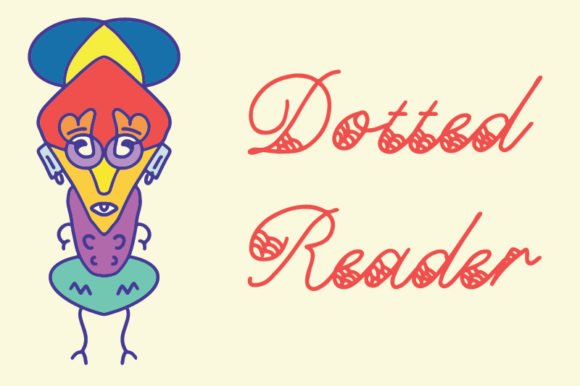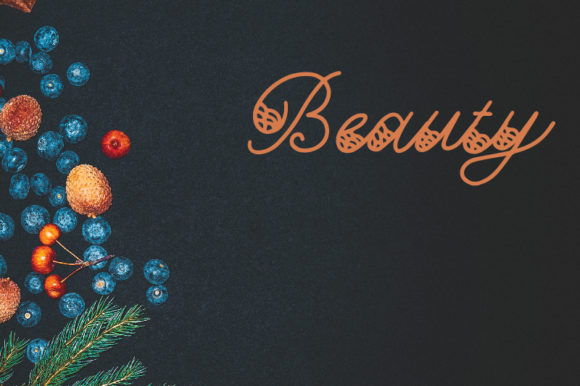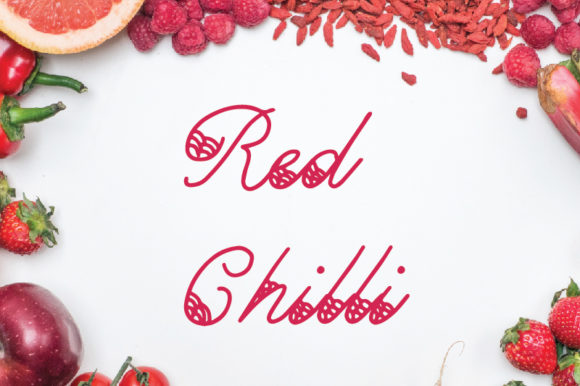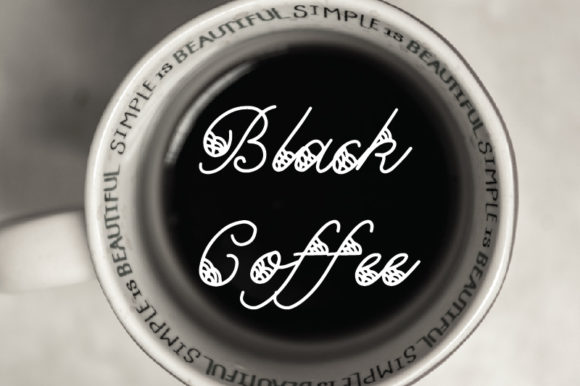
The Joy of Typographic Discovery
Have you ever stumbled upon a font that makes you feel like a kid in a candy store? You know, that moment when you’re browsing through font libraries, and suddenly, a particular style catches your eye, and you can’t help but imagine the endless possibilities it brings to your design projects? That’s exactly what happened to me when I discovered the Dotted Reader Font.
This versatile and fun script font boasts a unique style that sets it apart from other fonts in its category. The Dotted Reader Font is perfect for designers looking to add a touch of whimsy and personality to their work. Its playful nature makes it an excellent choice for creative projects, from branding and advertising to editorial and digital design. Whether you’re a seasoned designer or just starting out, the Dotted Reader Font is sure to become a valuable addition to your typography arsenal.
Dotted Reader Font Key Features
- Unique Characteristic: The Dotted Reader Font features a unique dotted design, making it ideal for reading and comprehension applications, particularly for individuals with visual impairments or learning difficulties.
Dotted Reader Font Review
Overall, I’m impressed with the Dotted Reader Font. It’s a great choice for designers looking to add a touch of whimsy to their projects.
- The font’s unique dotted design element adds a fun and playful touch to text.
- It’s highly legible, even at smaller font sizes.
- The font is available in a range of weights and styles, making it versatile for various design applications.
- The font may not be suitable for formal or professional designs, as it’s a bit too playful.
- Some characters, such as punctuation marks, may not be perfectly aligned with the dotted design element.
- The font may not be as effective in small text sizes, where the dots can become distracting.
I would recommend the Dotted Reader Font for designers looking to add a bit of personality to their projects. While it may not be the best choice for every design application, it’s a great option for those looking for a fun and playful font.
The Dotted Reader Font is ideal for:
- Children’s books and educational materials.
- Infographics and data visualizations.
- Headings and titles in presentations and documents.